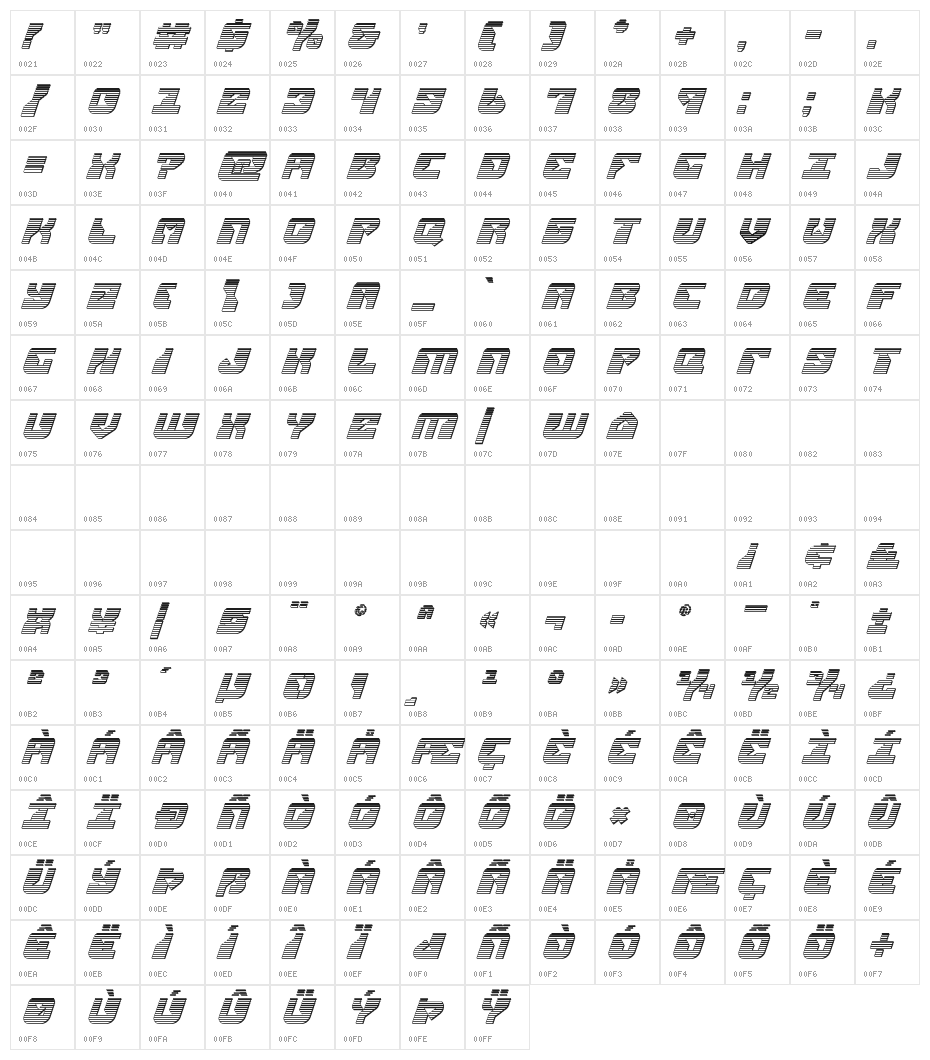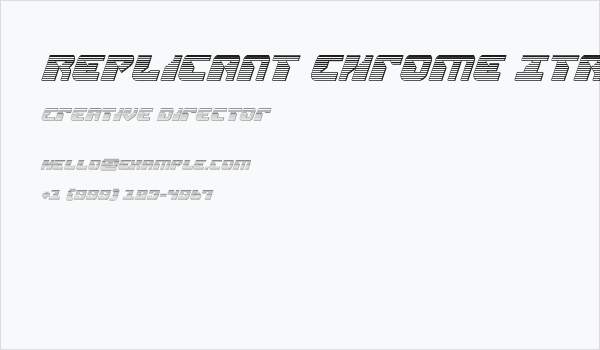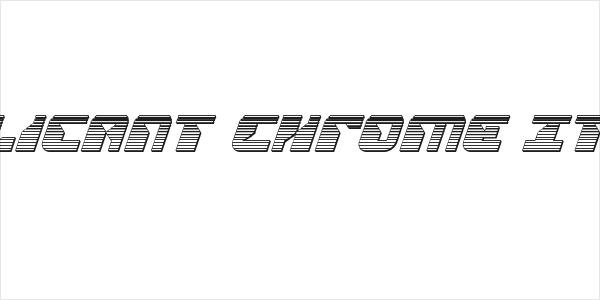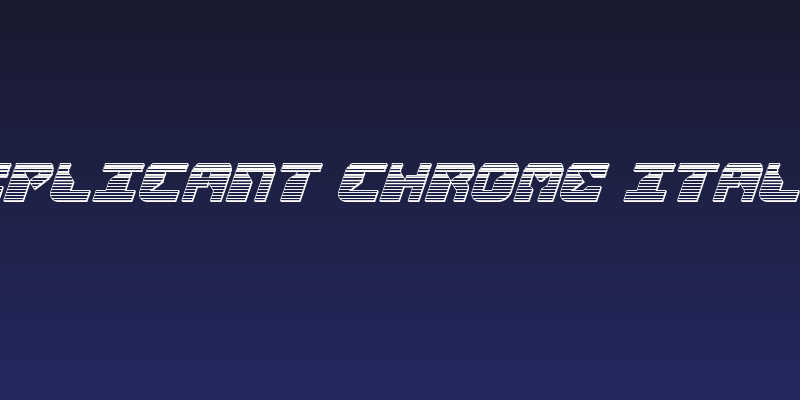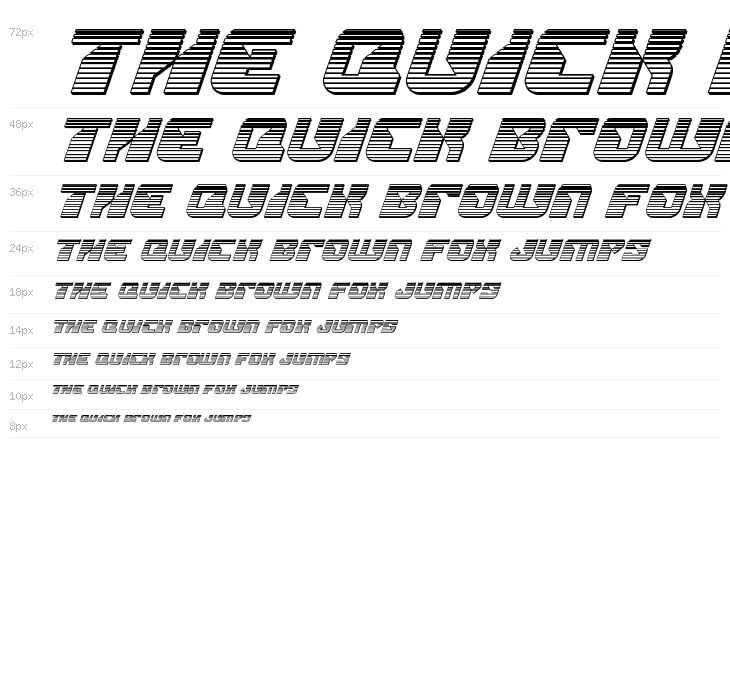
Replicant Chrome Italic Font
Replicant Chrome Italic Description
This font features a futuristic and dynamic design with a distinct italic slant. Each character is composed of parallel horizontal lines, creating a striped effect that gives a sense of movement and energy. The bold and angular shapes of the letters enhance its modern and technological appearance, making it suitable for projects that require a cutting-edge and innovative look. The uppercase and lowercase letters maintain a consistent style, while the numerals and special characters complement the overall aesthetic.
Proposed ProjectsIdeal for technology branding, sci-fi themed designs, video game titles, and futuristic posters.